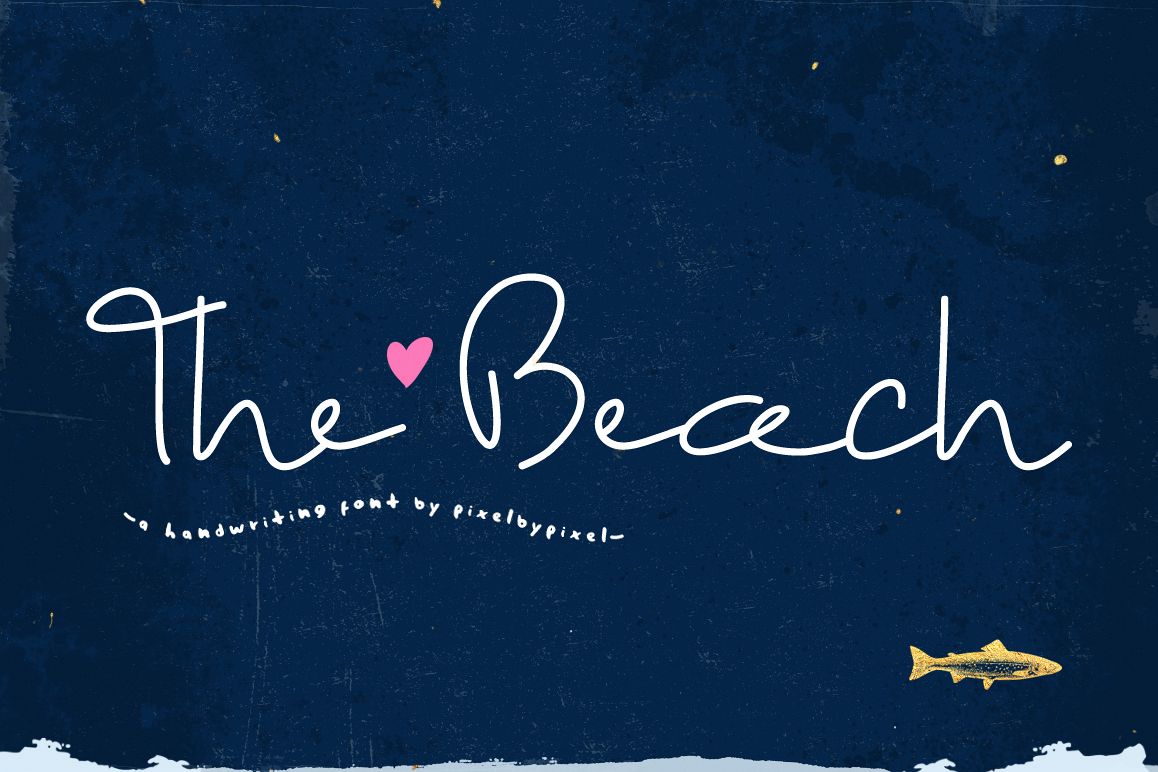
The Beach Font
The Beach Font is a monoline font with a girly, free style. Great for frames, quotes, invitations... everything!
Uppercase and lowercase, numbers and punctuation.